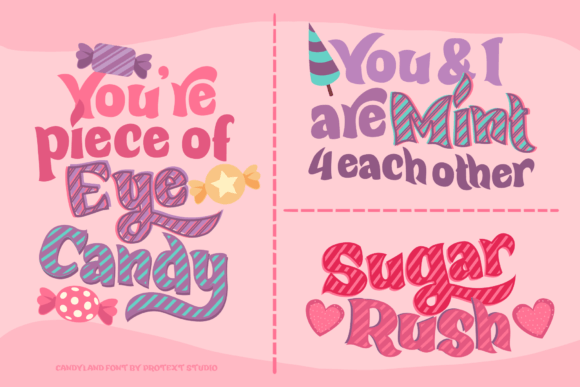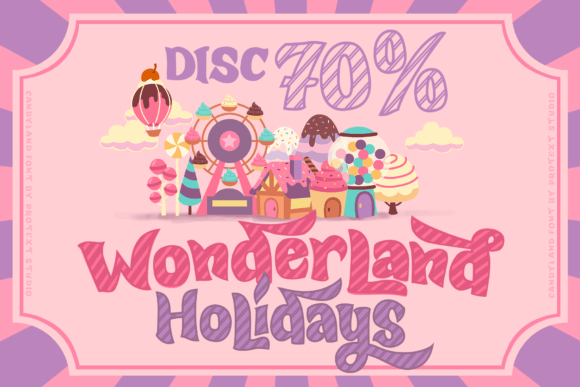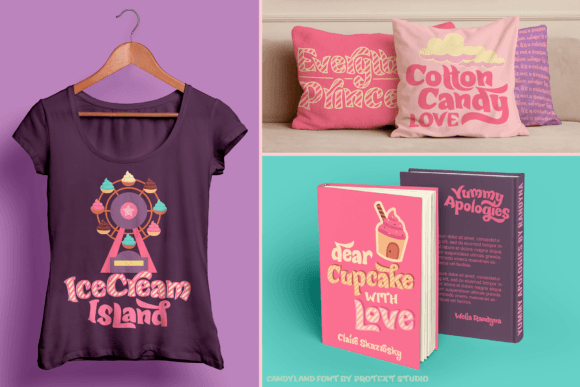
Candy Land Font
Candy Land is a fun and whimsical display font. It consists of 3 fonts which can be used on its own or can also be used as layered fonts, and also, 25 transparent PNG images as FREE BONUS. Whether you use it for cartoon-related designs, children’s games, theme park, parade, food packaging and promotion, or just any creation that requires a lovely touch, this font will be an amazing choice. This font is PUA encoded which means you can access all of the amazing glyphs and ligatures with ease!